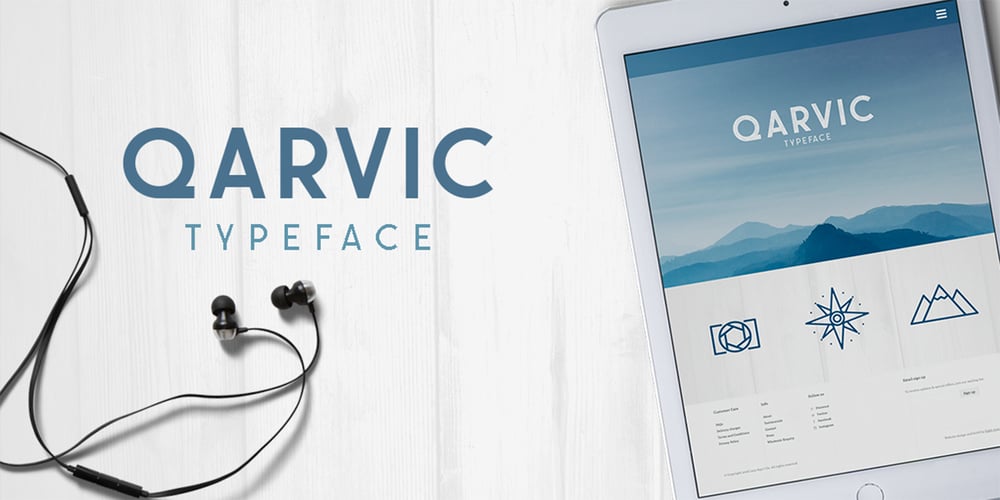
QARVIC Font Family was designed by Alit Suarnegara and published by Alit Design. QARVIC contains 7 styles and family package options. Introducing QARVIC TYPEFACE, a simple and beautiful font made with persistence and passion. QARVIC has a unique character when compared with the others sans serif font, it has two types of letters (plain type and type grunge) and there also has an outline QARVIC icon characters. QARVIC typeface is suitable for simple logo design, website header, wedding design, badges, menu fonts for website, to design fashion and others that have a minimalist and simple concept. Thank you and enjoy ๐